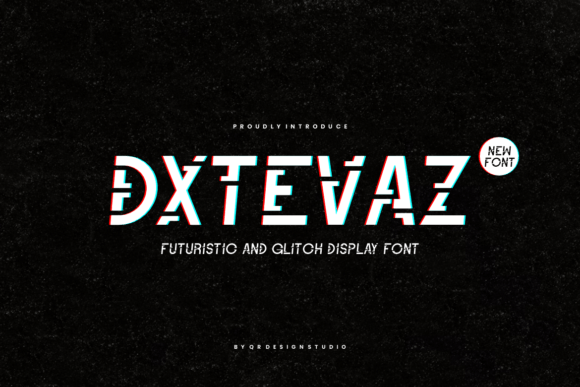
The Perfect Font for Your Next Masterpiece
Have you ever been in the midst of a creative project, and suddenly, the right words just don’t seem to fit? The perfect phrase, the ideal font, the finishing touch that elevates your entire design to new heights – it’s a moment we’ve all experienced. For designers, this moment is not only frustrating but also a catalyst for innovation. It’s in these moments that the right font can make all the difference.
Enter Dxtevaz Font, a unique decorative font designed to help you bring your creative ideas to life. With its masterful design, Dxtevaz Font is the perfect addition to any designer’s toolkit. Whether you’re working on a branding project, a poster, or a digital campaign, this font has the potential to take your design to the next level. For designers, Dxtevaz Font is a valuable resource that can help you create truly unforgettable work.
Dxtevaz Font Key Features
- Font Family: Dxtevaz Font
- Unique Characteristics: Dxtevaz Font features a unique blend of modern and futuristic elements, with a distinctive geometric shape and bold lines, making it ideal for creating eye-catching designs.
Dxtevaz Font Review
I recently had the chance to work with the Dxtevaz font, and I have to say, it’s a mixed bag. On the one hand, I love its unique aesthetic and the way it adds a touch of sophistication to any design.
- ✨ **Versatility**: The Dxtevaz font is incredibly versatile, making it suitable for a wide range of design projects, from logos and branding to web design and print materials.
- ✨ **Distinctive style**: The font’s distinctive style and flair make it stand out from more traditional fonts, adding a touch of personality to any design.
However, there are some limitations that I think are worth mentioning.
- ⚠️ **Legibility at small sizes**: While the font looks great at larger sizes, I found that it can become a bit difficult to read at smaller sizes, which may be a concern for designers who need to use it for body text.
- ⚠️ **Limited language support**: Unfortunately, the Dxtevaz font doesn’t support as many languages as I would like, which may limit its use for international design projects.
Overall, I think the Dxtevaz font is a great choice for designers who are looking to add a touch of sophistication and personality to their designs. While it may have some limitations, its unique aesthetic and versatility make it a solid addition to any designer’s toolkit.
Tips for Getting the Most Out of Dxtevaz Font
Here are some tips to get the most out of the Dxtevaz font:
– Use it for creative and artistic projects, such as posters, flyers, and business cards.
– Pair it with other bold and modern fonts for a unique look.
– Experiment with different font sizes and styles to create visual interest.
The Dxtevaz font is commonly used for:
– Creative projects, such as posters, flyers, and business cards.
– Digital products, such as e-books, apps, and websites.
– Branding and marketing materials, such as logos and brochures.